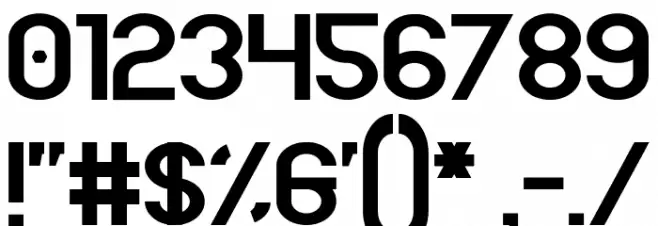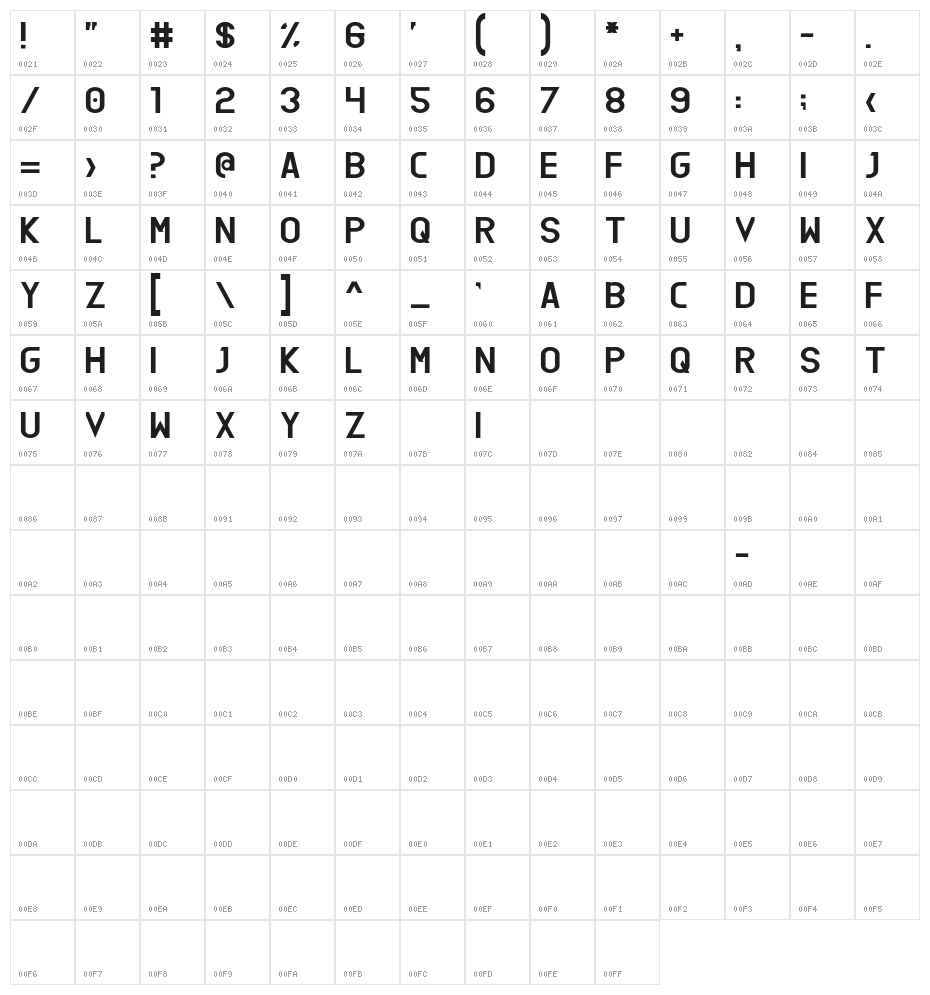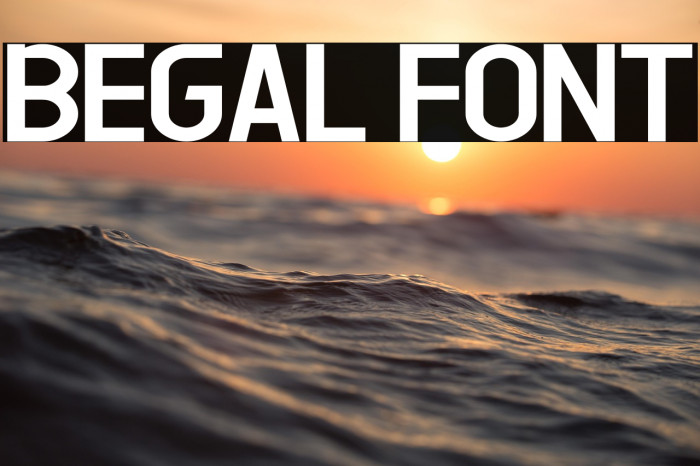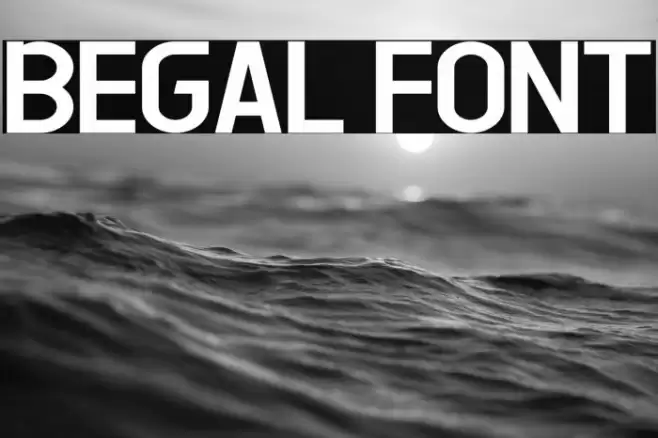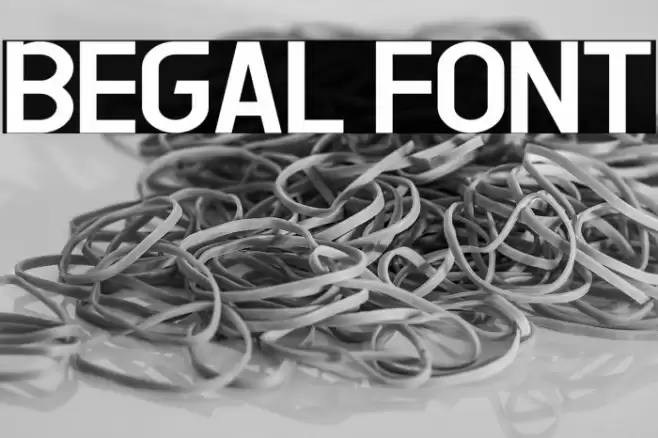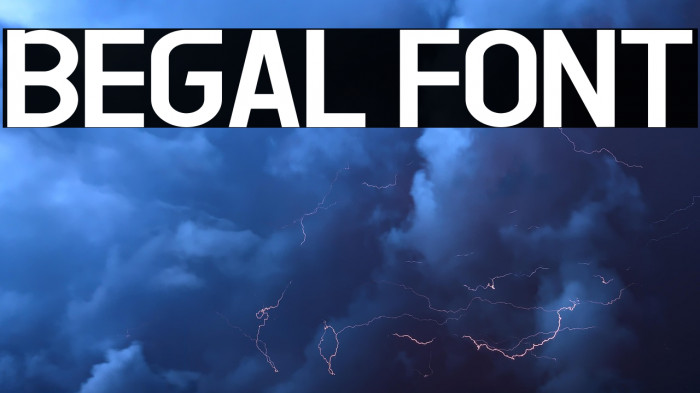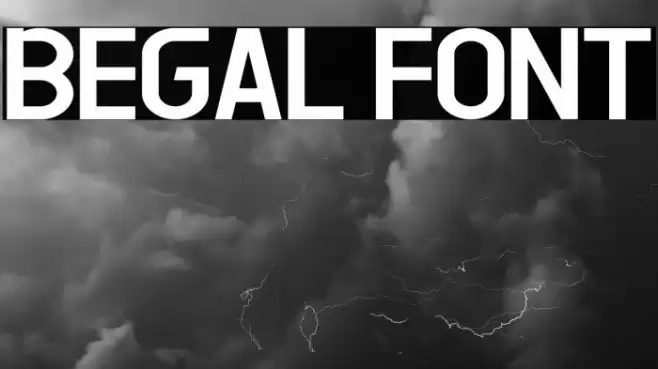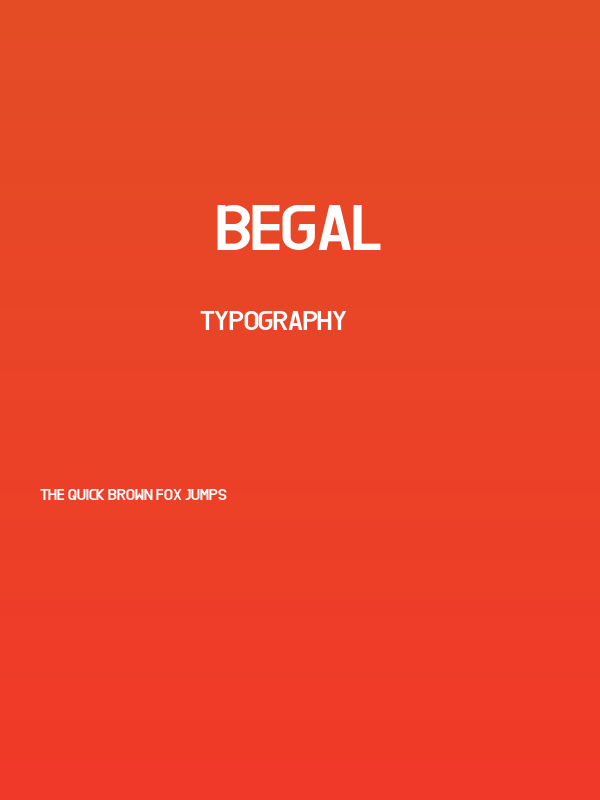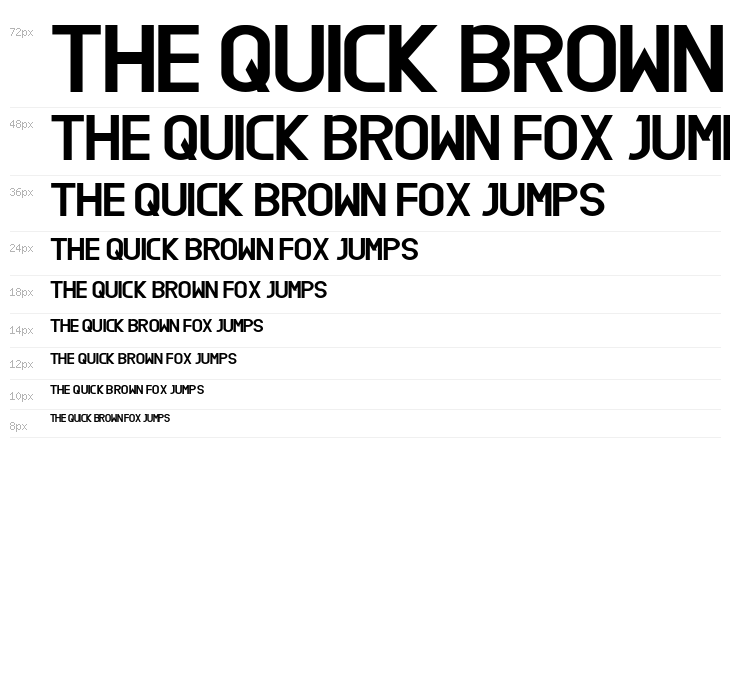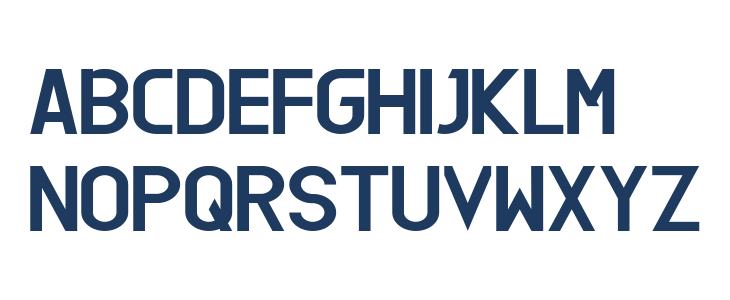
Begal Font
Begal Description
This font features a bold and modern sans-serif design with clean, geometric lines. The characters are uniform in width, providing a balanced and structured appearance. The uppercase letters are particularly striking, with sharp angles and a strong presence. The lowercase letters maintain the same geometric style, ensuring consistency throughout. Numbers are clear and easy to read, making them suitable for various applications. Special characters are well-integrated, matching the overall aesthetic. The font's simplicity and clarity make it versatile for both digital and print media.